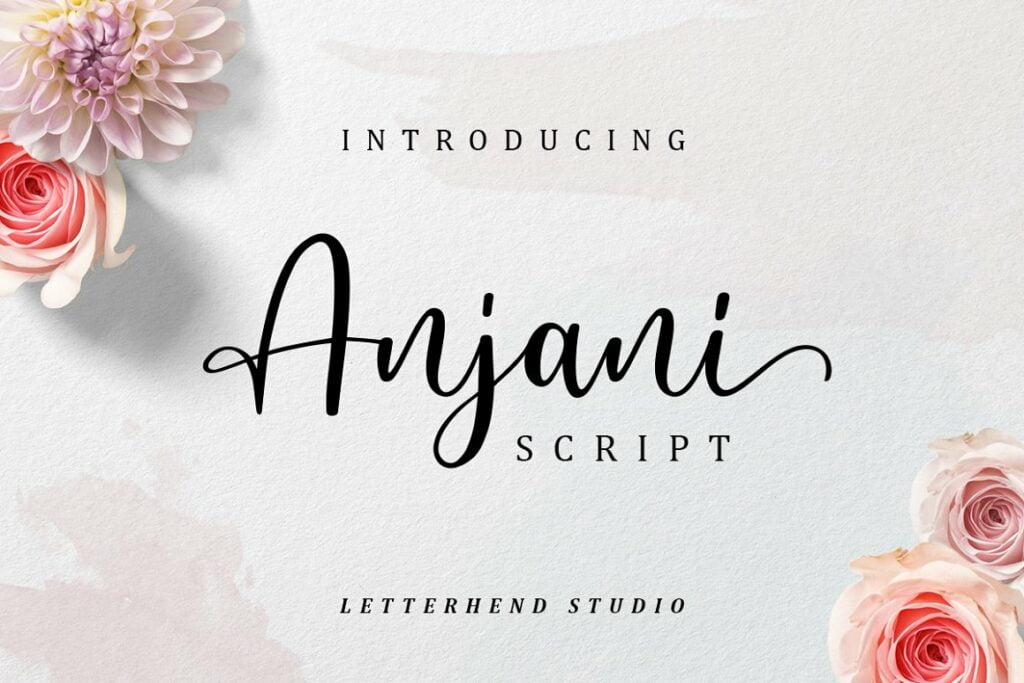
Anjani Font
Anjani, a modern calligraphy script that bring romantic feel. The natural hand writing script is suitable for you who needs a typeface for headline, logotype, apparel, invitation, branding, packaging, advertising etc.
This typeface is comes in uppercase, lowercase, punctuations, symbols & numerals, stylistic set alternate, ligatures, etc also support multilingual and already PUA encoded.
Anjani Modern Calligraphy Font